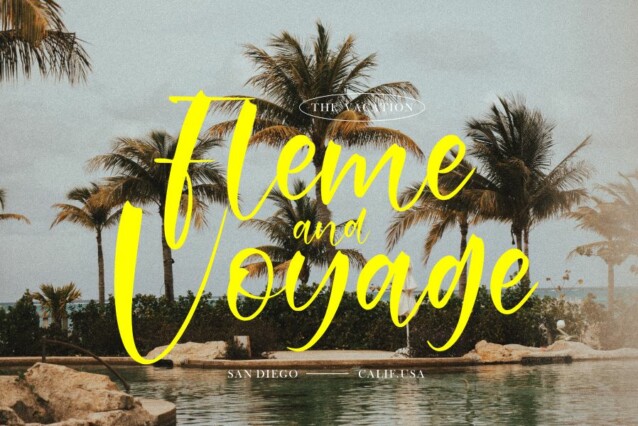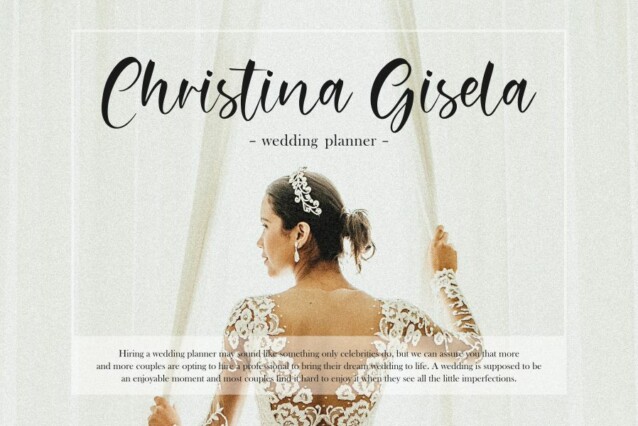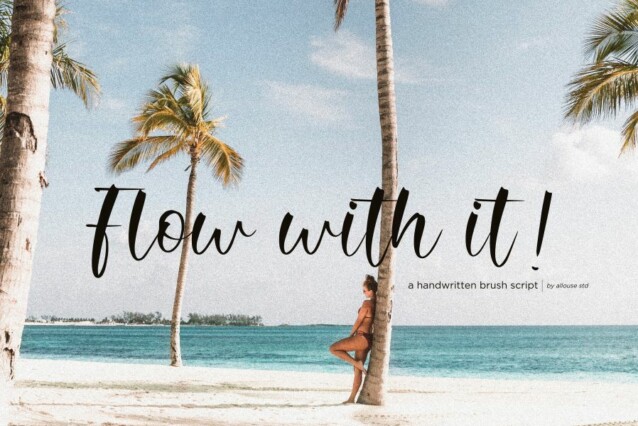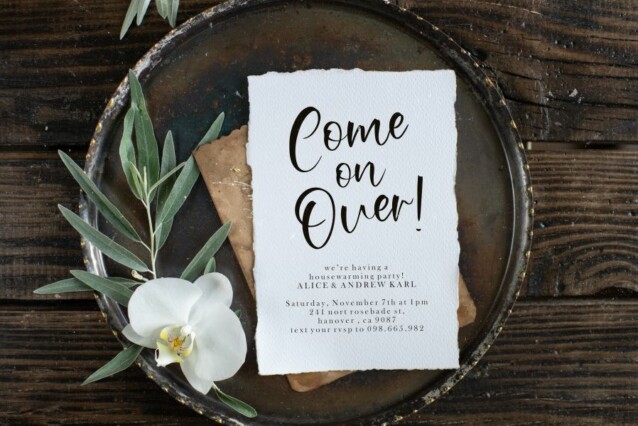
Humblegirl Font
Humblegirl Font is a stylish and modern handwritten script font. This gentle font will look gorgeous on a variety of design ideas. It will add a joyful and romantic touch to each of your projects!